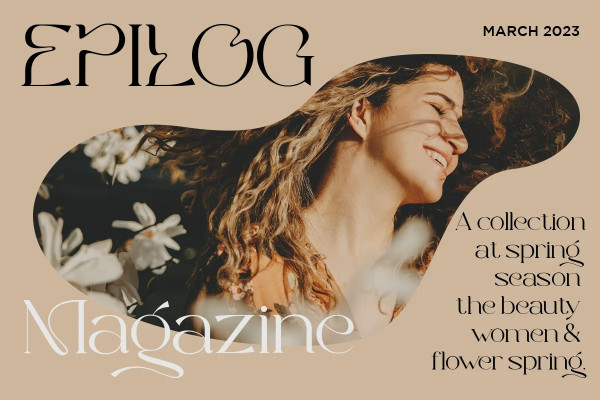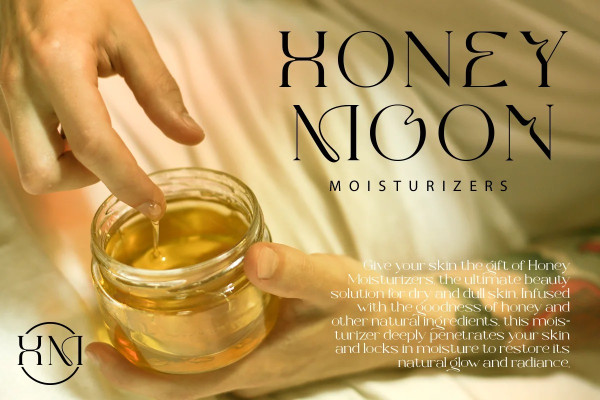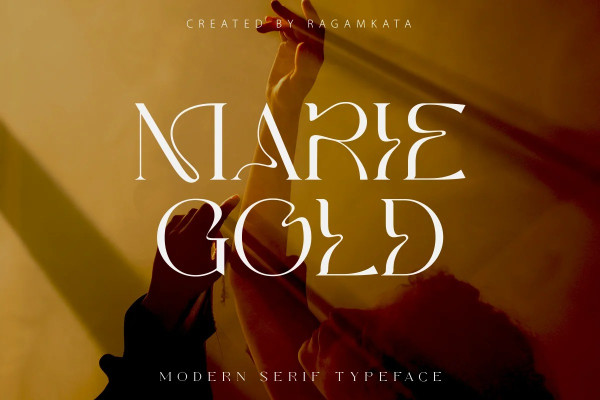
Marie Gold Font
Marie Gold Font rich serif with letters that seem modern unique serif typefaces. Perfect for branding, logos, invitations, mastheads, and more. Marie gold has 15 ligature on Uppercase and Lowercase thus making it look more attractive and unique